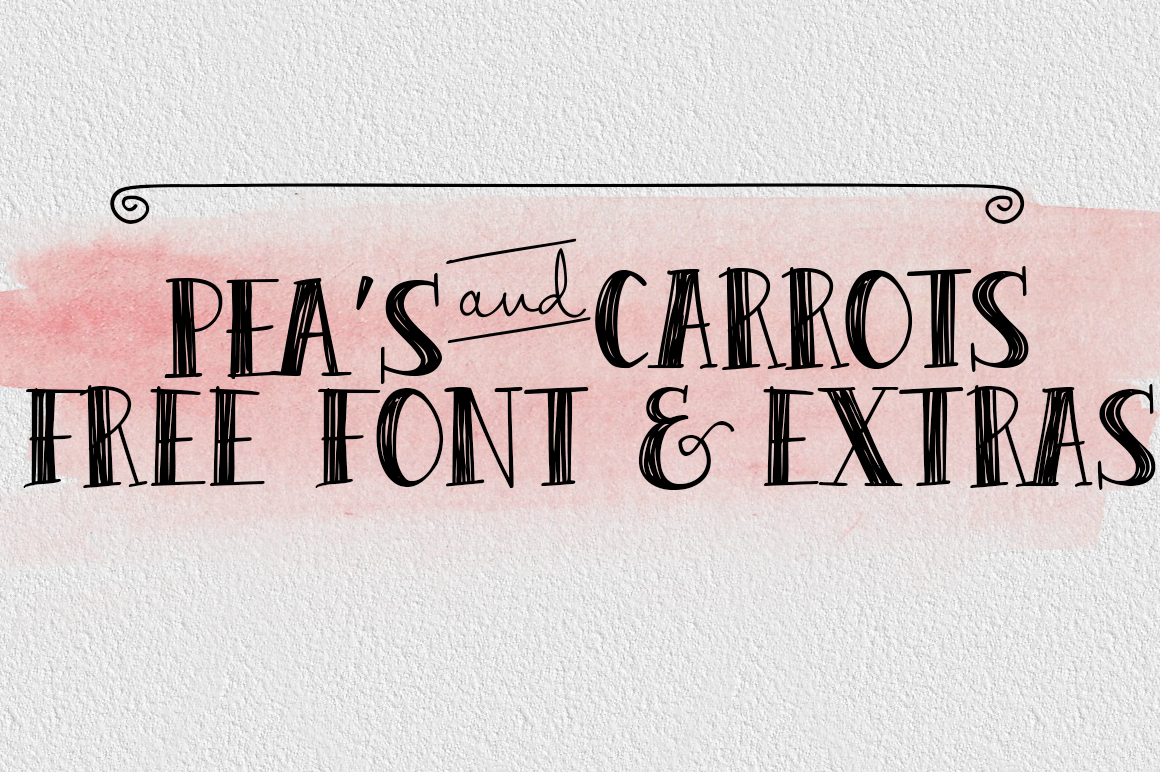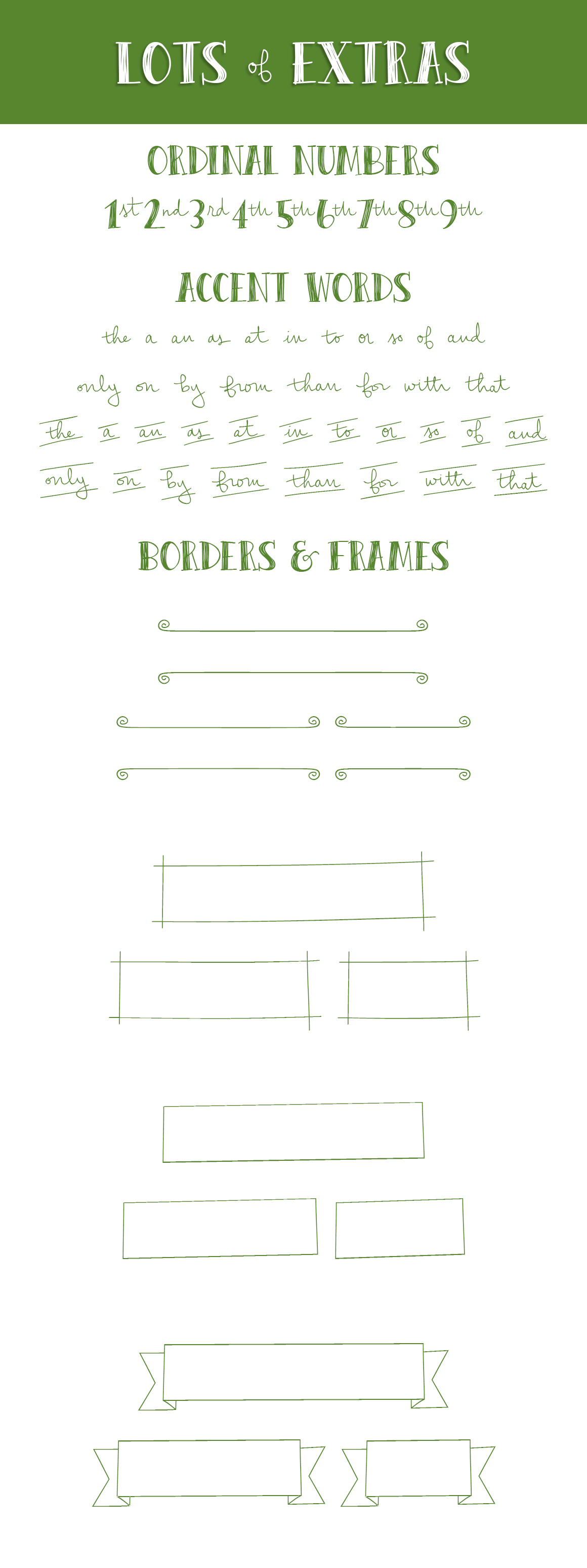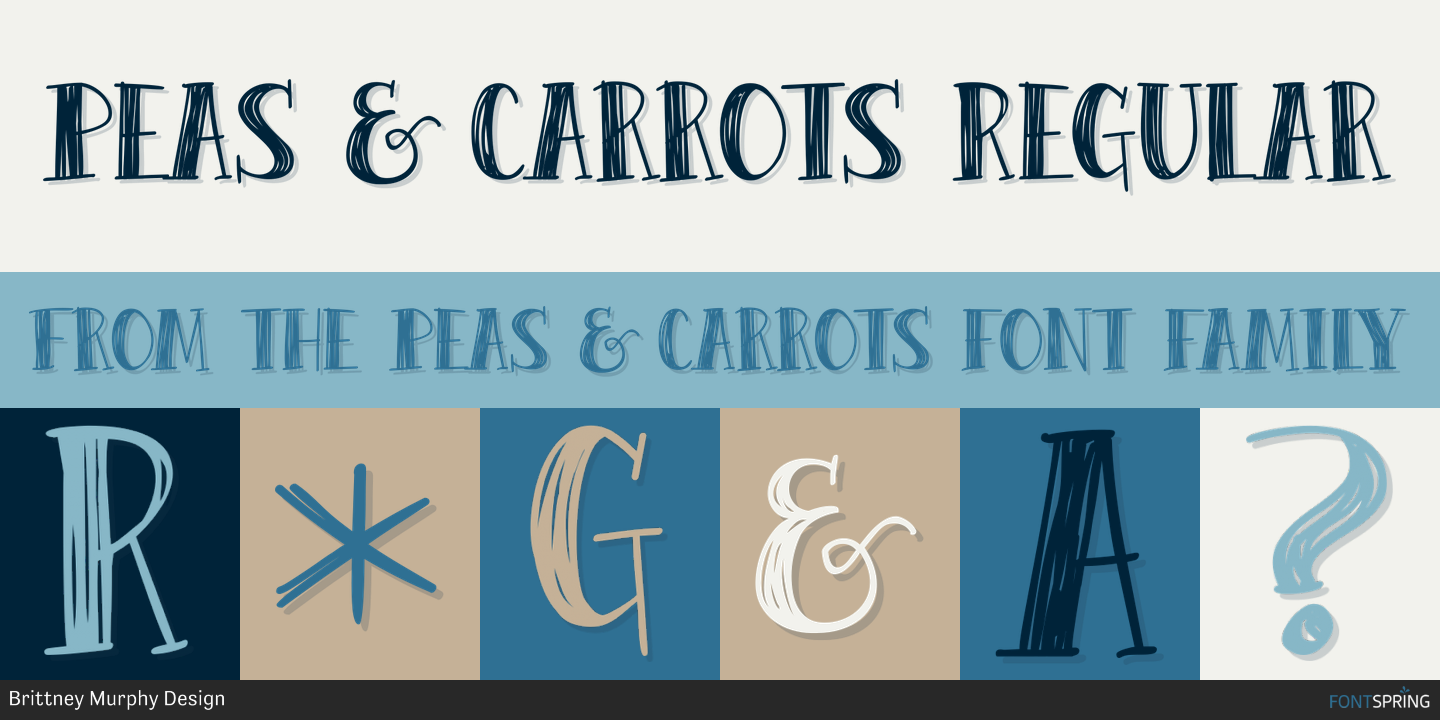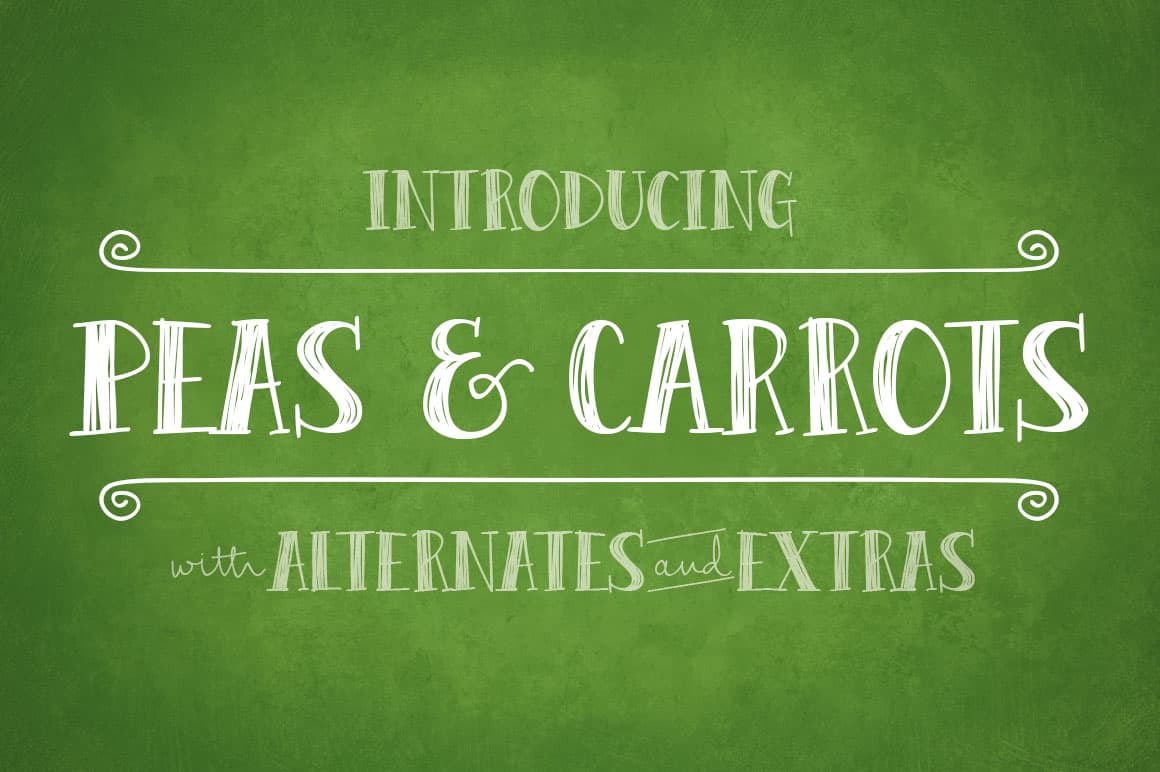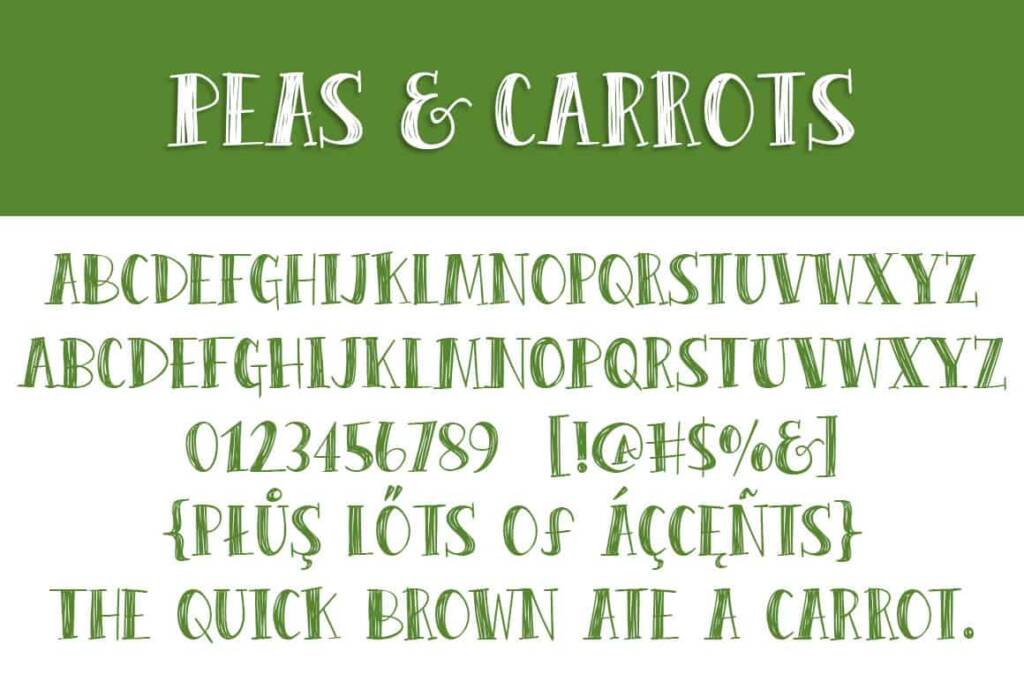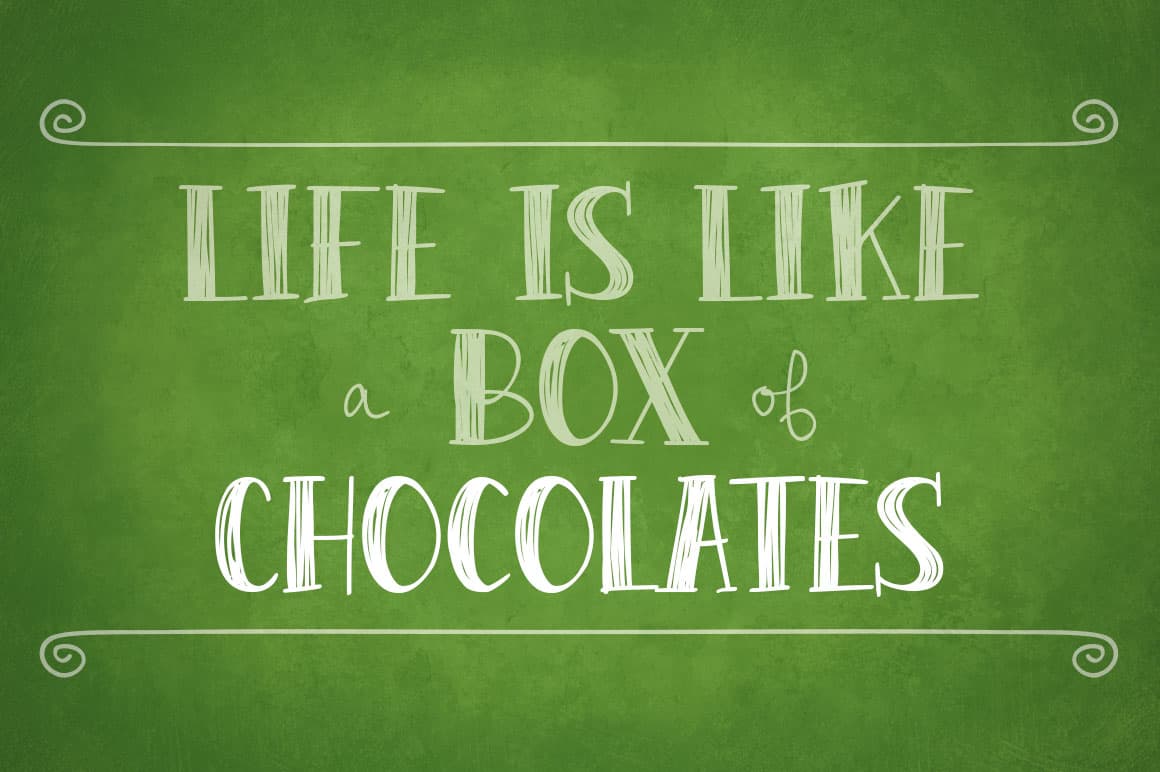
Peas And Carrots Font . Peas and carrots is a serif fonts font by brittney murphy design, first seen on makerstype on october 22, 2020. Alternate upper and lowercase letters. Peas & carrots is a unique and charming font that embodies a playful and whimsical style. Download and install the peas and carrots font by brittney murphy. Peas & carrots font — created in 2015 by brittney murphy design. Download free peas & carrots font by brittney murphy. The typeface contains 2 files and supports 56 languages. It is script font and has 2 styles. The peas and carrots font has been downloaded 114,227 times. Peas & carrots is a font. The font features irregular and uneven lines, giving it a. Comes with an 'extras' font with.
The peas and carrots font has been downloaded 114,227 times. Peas and carrots is a serif fonts font by brittney murphy design, first seen on makerstype on october 22, 2020. The font features irregular and uneven lines, giving it a. Peas & carrots is a font. Comes with an 'extras' font with. Peas & carrots font — created in 2015 by brittney murphy design. Alternate upper and lowercase letters. Peas & carrots is a unique and charming font that embodies a playful and whimsical style. Download free peas & carrots font by brittney murphy. Download and install the peas and carrots font by brittney murphy.
Peas And Carrots Font It is script font and has 2 styles. The peas and carrots font has been downloaded 114,227 times. Comes with an 'extras' font with. The typeface contains 2 files and supports 56 languages. It is script font and has 2 styles. Download free peas & carrots font by brittney murphy. Download and install the peas and carrots font by brittney murphy. Peas & carrots font — created in 2015 by brittney murphy design. Peas & carrots is a unique and charming font that embodies a playful and whimsical style. Peas and carrots is a serif fonts font by brittney murphy design, first seen on makerstype on october 22, 2020. Peas & carrots is a font. The font features irregular and uneven lines, giving it a. Alternate upper and lowercase letters.